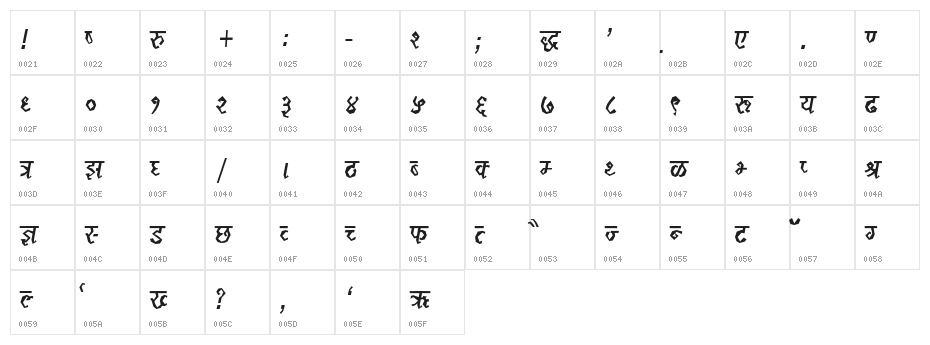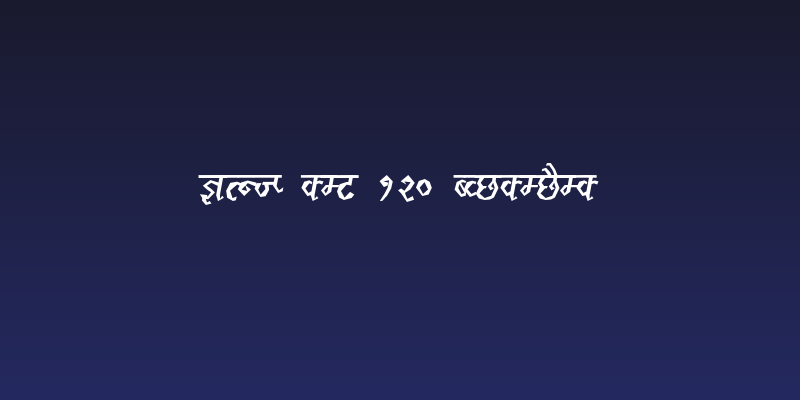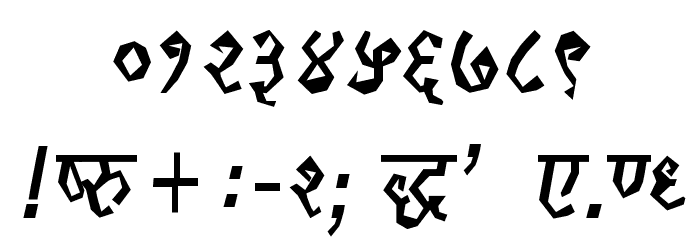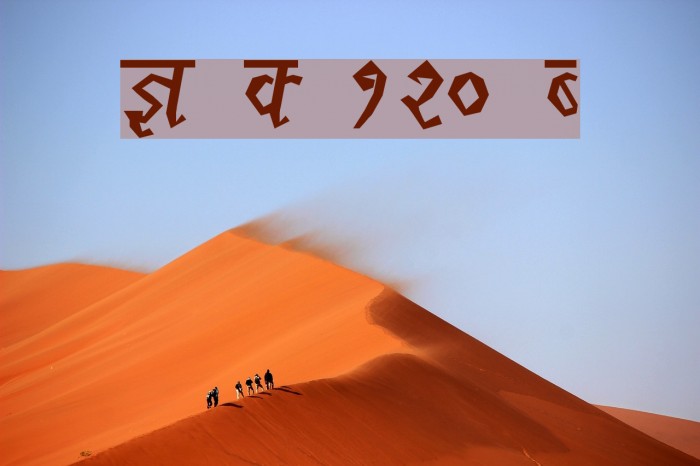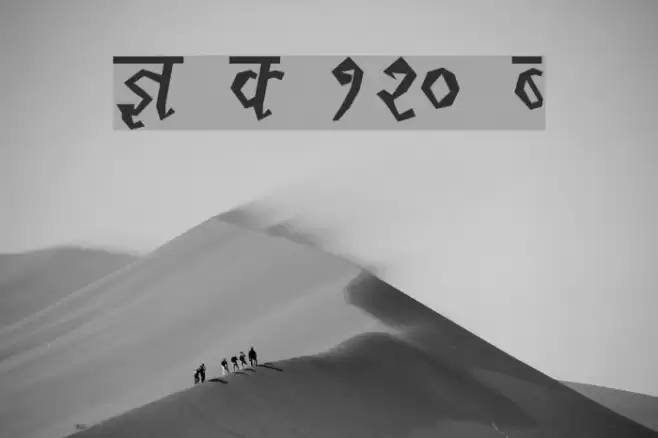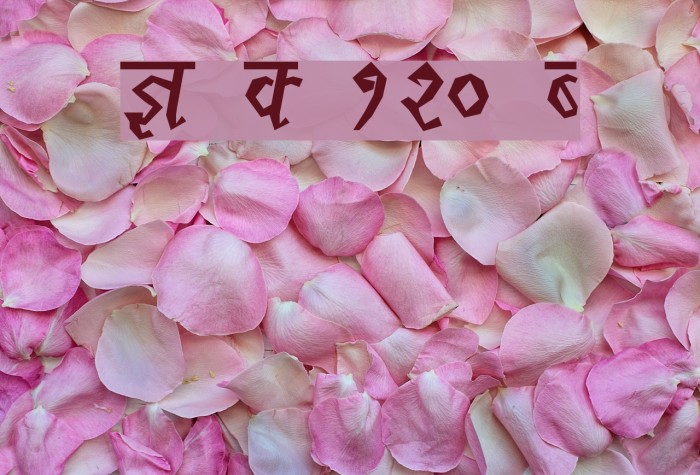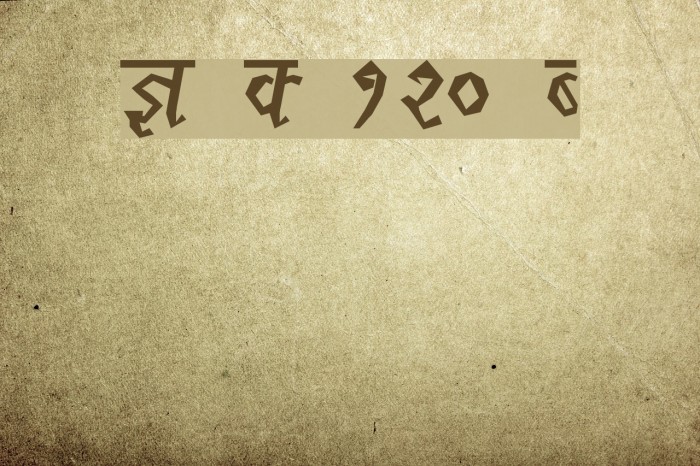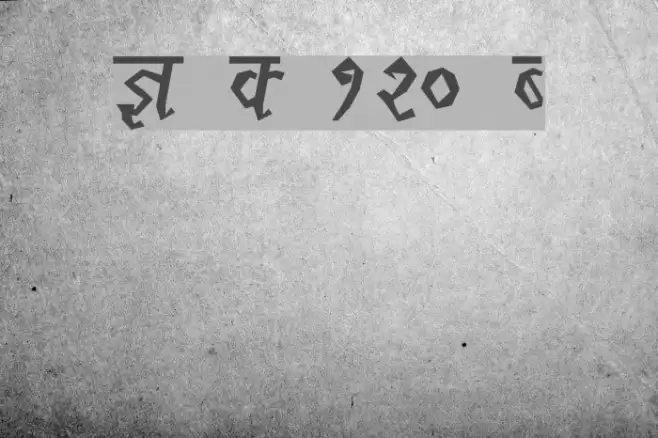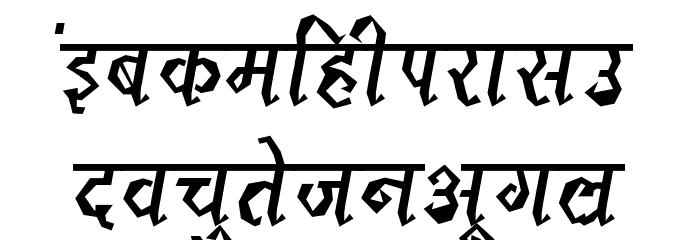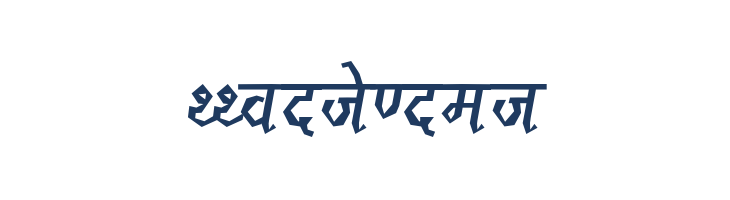
Kruti Dev 120 Condensed Font
This font is a Devanagari script with a distinct angular and geometric style, characterized by sharp edges and a condensed form. The characters are tightly spaced, giving it a compact appearance. The strokes are bold and uniform, providing a strong visual impact. The font maintains a traditional feel while incorporating modern design elements, making it suitable for both formal and creative applications. Its unique style is particularly effective in capturing attention and conveying a sense of authority and tradition.
| Overall Style | Traditional with modern elements |
| Proposed Projects | Ideal for use in traditional Indian publications, cultural event posters, and branding materials that require a strong and authoritative presence. |